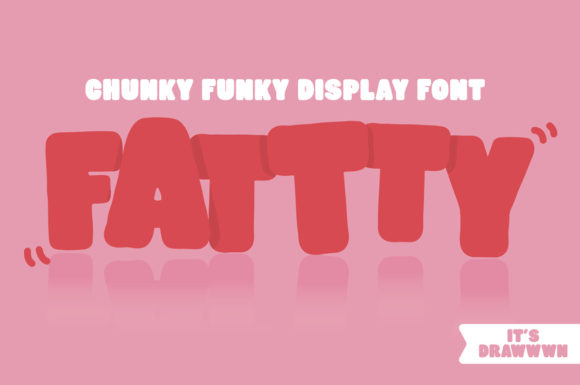
Introducing Fattty Font - A Spooktacular Treat for Your Halloween Designs!
In the realm of creativity, where imagination runs wild and ideas bloom, allow Fattty Font to cast its spell on your Halloween projects. This delightfully plump display font, crafted by the talented Drawwwn, is not just a font; it's a magical tool that transforms your creations into enchanting works of art.
Adorned with a friendly and inviting personality, Fattty Font is a versatile chameleon, effortlessly adapting to a myriad of contexts. Its playful, chunky letters exude a charm that is both captivating and endearing. Unleash your imagination and witness how Fattty Font breathes life into your Halloween posters, invitations, social media posts, and more!
With Fattty Font as your creative companion, you'll embark on a thrilling adventure where your designs take center stage, demanding attention and admiration. Prepare to be amazed as your Halloween concepts leap off the screen, imbued with a captivating allure that draws viewers into your spellbinding world.
But Fattty Font's magic doesn't stop there. Its user-friendly nature makes it a joy to work with, ensuring a smooth and effortless creative experience. Whether you're a seasoned design pro or just starting your creative journey, Fattty Font will seamlessly integrate into your workflow, allowing you to conjure up captivating visuals with minimal effort.
So, embrace the haunting spirit of Halloween and let Fattty Font guide you on an unforgettable design adventure. Prepare to cast spells on your audience, leaving them spellbound by the enchanting allure of your creations. Make Fattty Font your secret weapon and watch as your Halloween designs rise from the ordinary to the extraordinary!